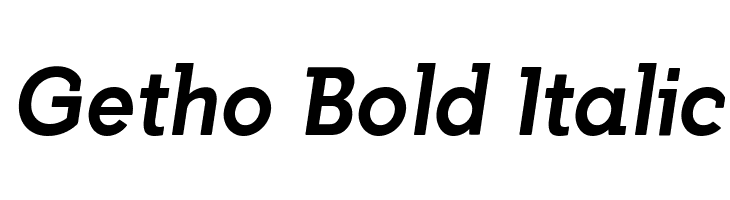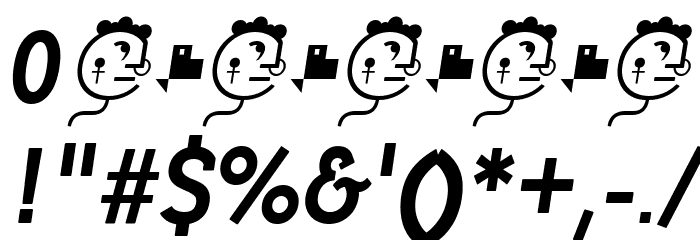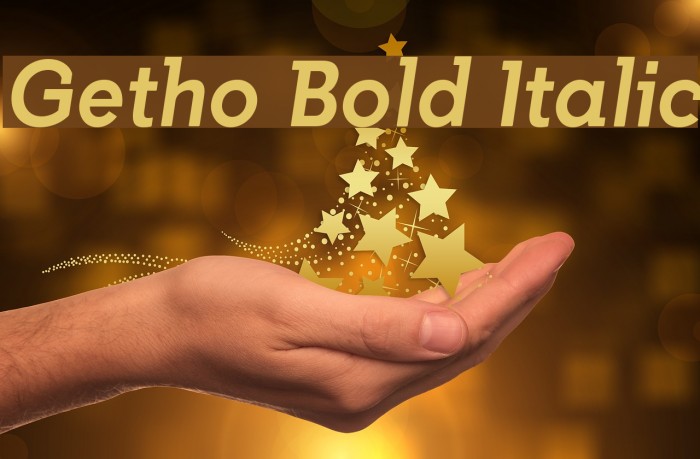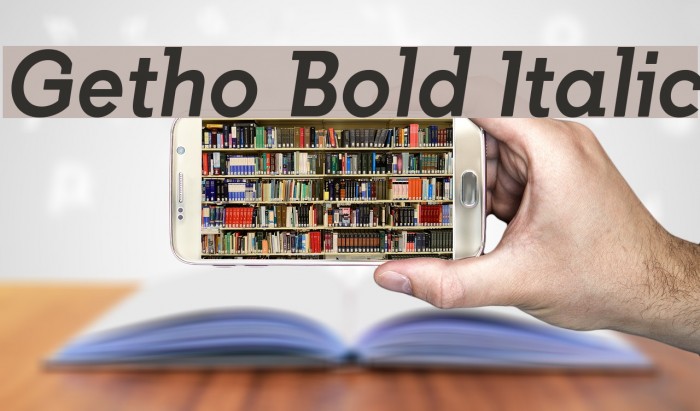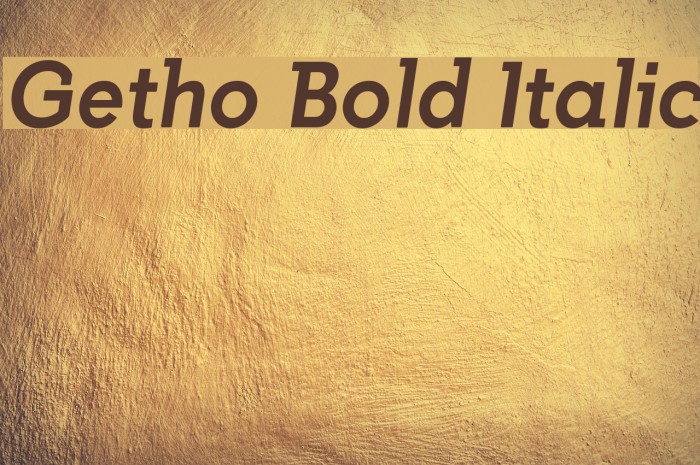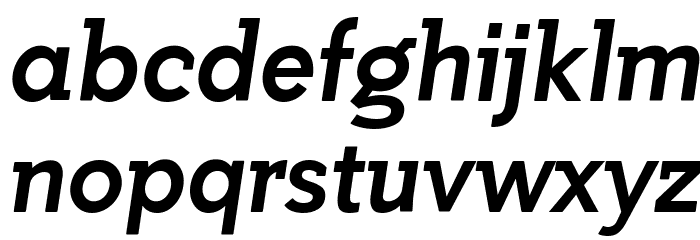
Getho Bold Italic Font
This font features a bold and italicized style, characterized by its strong and dynamic appearance. The letters are slightly slanted, giving a sense of movement and energy. The strokes are thick and consistent, providing a robust and confident look. The uppercase and lowercase letters maintain a uniform style, ensuring readability and coherence. The numbers and special characters are designed to match the overall aesthetic, with clear and distinct shapes. This font is versatile, suitable for various design needs where emphasis and style are required.
A bold, italicized font with strong, dynamic strokes and a cohesive design.
• Proposed Projects: Ideal for branding, advertising, headlines, and any project requiring a bold statement.
• Category: Sans-Serif
• Bold: Yes
• Italic: Yes
• Weight: Bold
• Width: Normal
• Character Spacing: Normal
• Contrast: Low
• Overall Style: Modern
• Use Case: Headlines, Logos, Branding